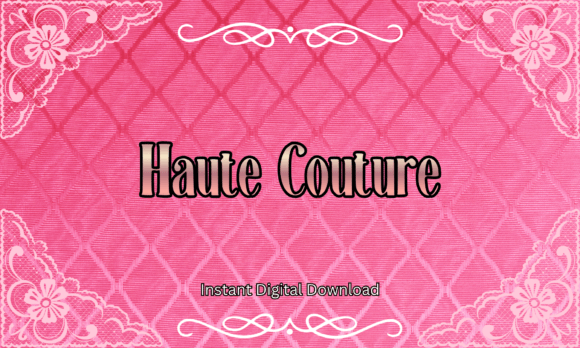
Give Your Designs a Touch of High-End Elegance
You know that feeling when you’re brainstorming a new project, and everything just comes together? The perfect color palette, the ideal typography, and a dash of creativity that makes your design truly shine. For those moments, you need a font that’s as sophisticated as your vision. Introducing the Haute Couture Font, a stunning typeface that brings high-end style and elegance to your designs.
This exquisite font is perfect for creators, boutique owners, and designers who want their work to exude luxury and refinement. With its delicate lace details and timeless sophistication, the Haute Couture Font adds a touch of femininity and bold elegance to any project. Whether you’re designing for fashion, beauty, or chic branding, this font will instantly elevate your creations, making them stand out from the crowd.
Haute Couture Font Key Features
- Font Family: Haute Couture Font offers a range of 6 unique font styles, each with its own distinctive flair.
- Character Set: The font includes a comprehensive character set, including Latin, Cyrillic, and Greek alphabets, as well as a range of punctuation marks and symbols.
- Font Size: Haute Couture Font is designed to be highly legible at various font sizes, from 8pt to 24pt, making it suitable for a wide range of applications.
- Resolution: The font is optimized for high-resolution displays, ensuring crisp and clear text at resolutions up to 300 DPI.
- Unique Characteristics: The font’s distinctive flair is achieved through a combination of elegant lines, subtle curves, and refined details, making it perfect for high-end fashion, luxury brands, and sophisticated designs.
Haute Couture Font Review
As a designer, I was excited to dive into the world of Haute Couture Font. Upon initial inspection, I found several aspects that truly stood out ✨. The font’s sleek, high-end aesthetic is undeniable, making it perfect for luxury brands and high-end fashion designers. The intricate details and ornate flourishes add a touch of sophistication, elevating any design project to new heights.
Here are some specific features that I appreciate about Haute Couture Font ✨:
- Exquisite attention to detail, with intricate flourishes and ornaments.
- High-end aesthetic, perfect for luxury brands and high-end fashion designers.
- Excellent for creating eye-catching headlines and titles.
However, as with any font, there are some limitations to consider ⚠️. The font’s complexity can sometimes make it difficult to read, particularly in smaller sizes or when used extensively. Additionally, the font’s ornate nature may not be suitable for all design projects, such as those requiring a more minimalist approach.
Overall, I would give Haute Couture Font 4 out of 5 stars. While it excels in certain areas, its limitations prevent it from being a go-to font for every design project. Nevertheless, it remains a valuable addition to any designer’s toolkit, particularly for those working in the luxury and high-end fashion industries.
Tips for Getting the Most Out of Haute Couture Font
For best results, use Haute Couture Font in bold or italic styles to add emphasis to your text.
Use a large font size to make the text more visible.
Combine Haute Couture Font with other elegant fonts to create a unique and sophisticated design.
Haute Couture Font is ideal for:
Fashion design and branding
Luxury product packaging and labeling
High-end marketing materials and advertising
Alternatives to Haute Couture Font for Designers
Playfair Display is a luxurious serif font ideal for high-end fashion brands, luxury goods, and premium products. It’s perfect for designers who want to evoke a sense of elegance and sophistication. Compared to Haute Couture Font, Playfair Display is more versatile and can be used for both print and digital media.
What is the recommended font size for Haute Couture Font?
The recommended font size for Haute Couture Font is between 12pt and 24pt. This range allows the font to be legible and visually appealing. However, you can use the font at any size, depending on your design requirements. Keep in mind that smaller font sizes may affect the readability of the text.